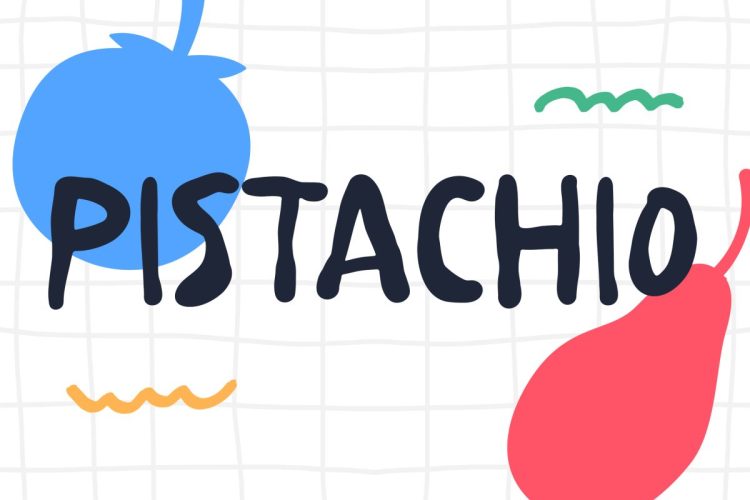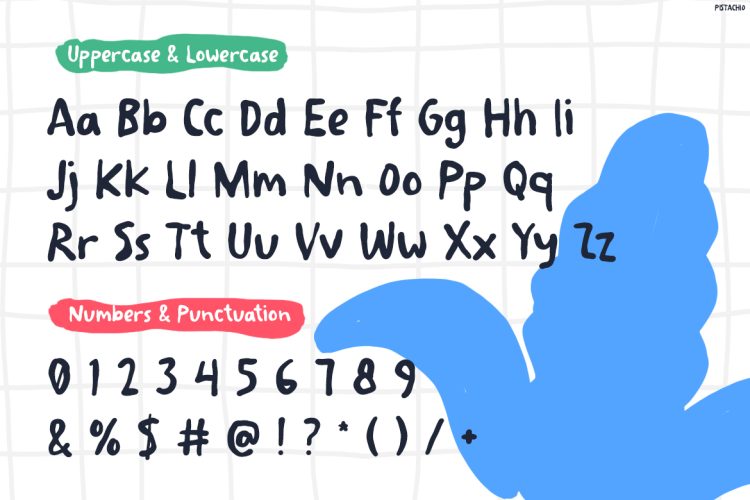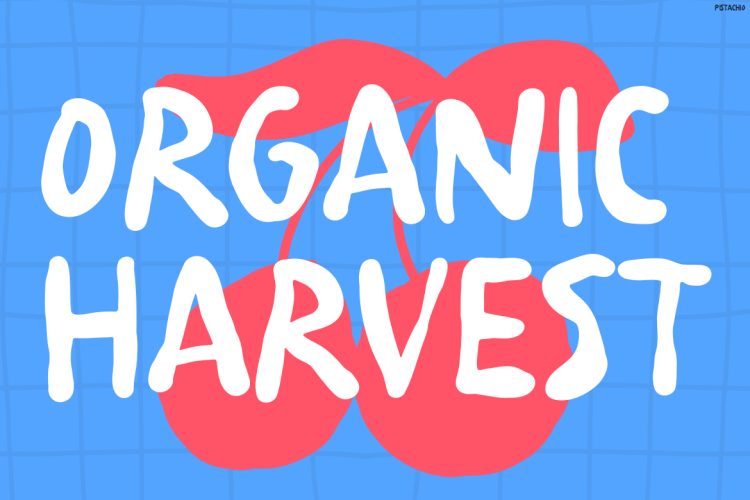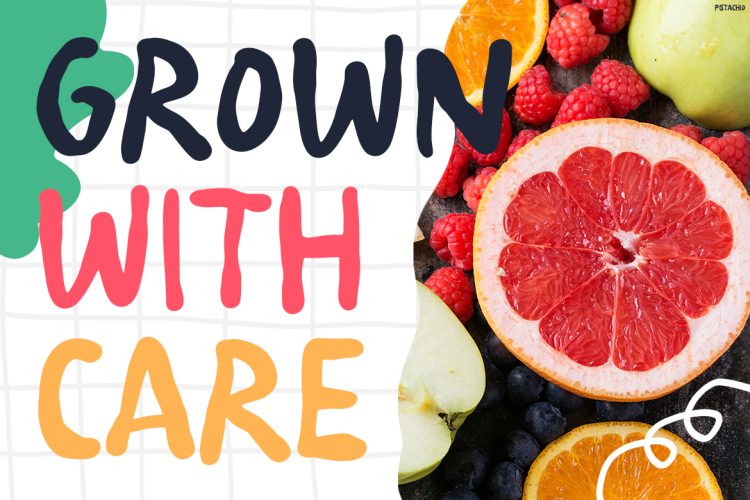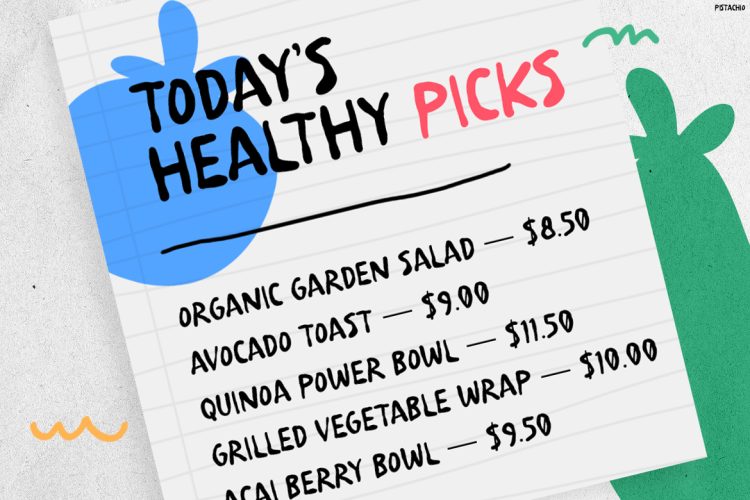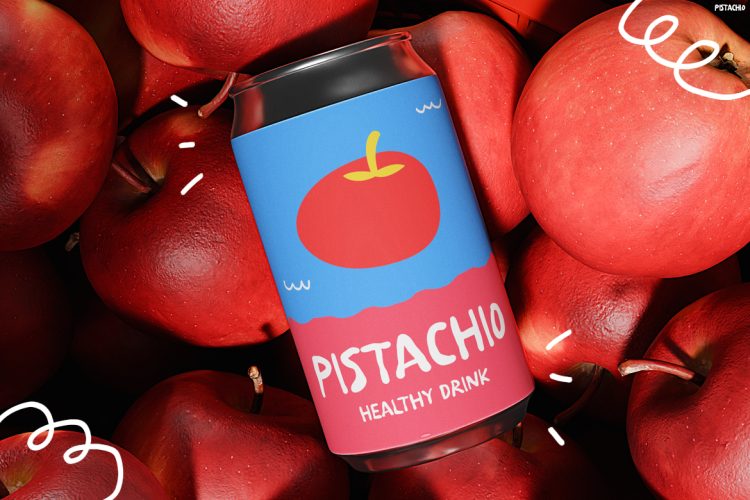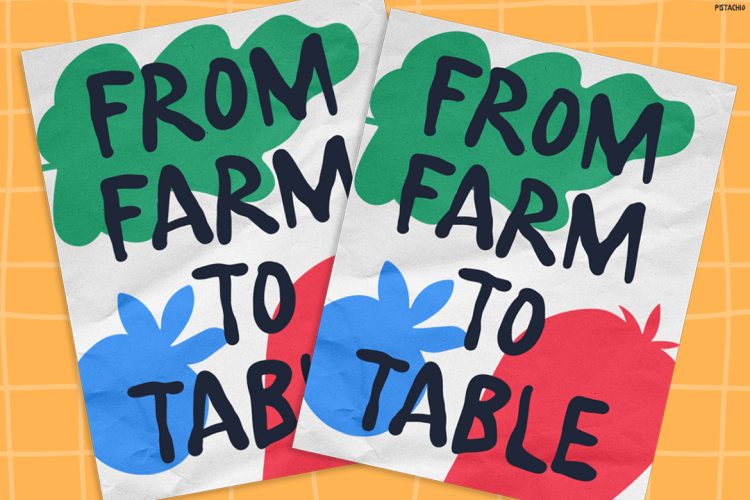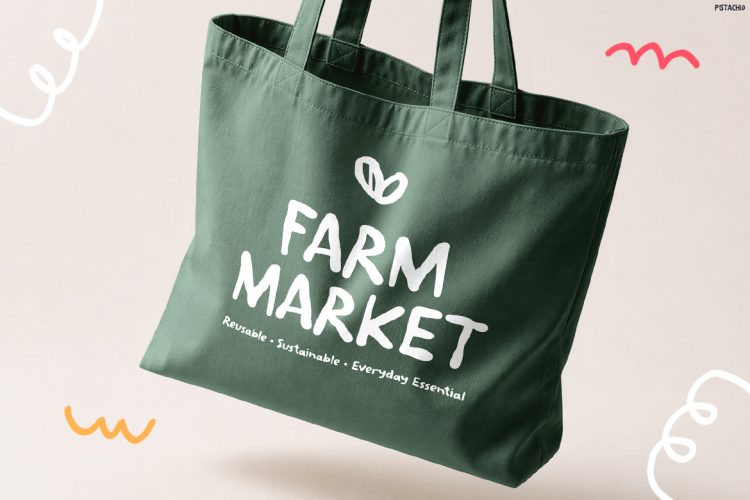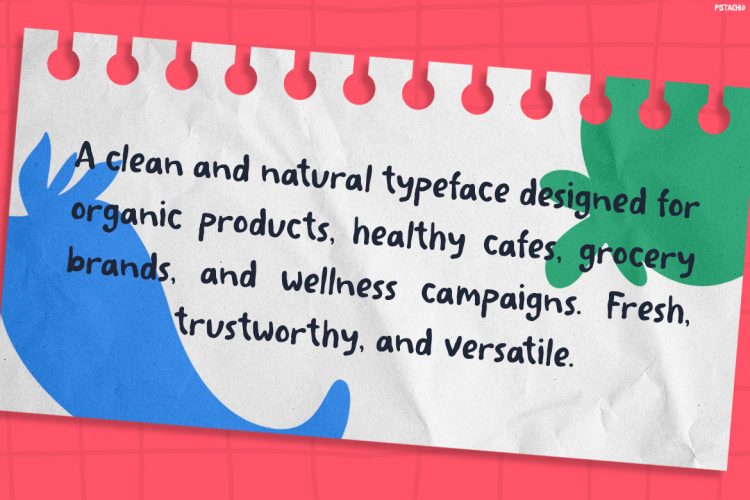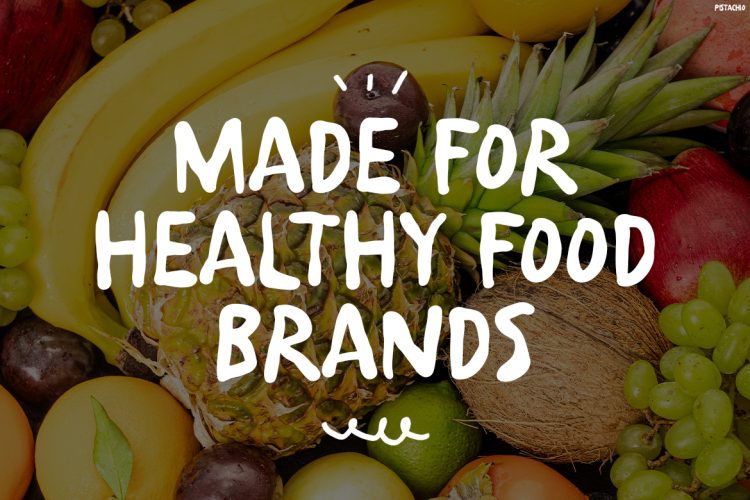
Handwriting Font Pistachio โ Fresh Organic Script with Healthy Brand Energy
Handwriting Font Pistachio is a fun and expressive handwritten font designed to bring freshness, creativity, and natural charm into every design. With its bold brush-style strokes, organic character shapes, and playful handcrafted aesthetic, this font instantly creates a friendly and eye-catching visual atmosphere. Moreover, the natural handwritten flow makes every headline feel authentic, warm, and full of personality. In addition, the bold structure keeps your typography highly readable, so your message stands out across packaging, menus, posters, and social media content. Because of its fresh organic appearance, Handwriting Font Pistachio works perfectly for healthy food branding, farm products, organic packaging, and eco-friendly campaigns. Furthermore, the energetic handwritten style helps every layout feel more approachable and memorable. At the same time, the playful artistic vibe gives your branding a modern and trustworthy personality.
Why Handwriting Font Pistachio Stands Out
Pistachio combines natural handwritten charm with modern branding appeal. As a result, every word feels fresh, lively, and full of character. Not only does the font create a strong visual presence, but it also enhances your designs with its organic and handcrafted look. Additionally, the bold brush lettering makes headlines pop instantly. Meanwhile, the imperfect handwritten details keep your branding feeling genuine and human. Whether you are creating organic food packaging, healthy cafรฉ promotions, farmers market branding, or eco-conscious campaigns, this font helps every project feel more vibrant and engaging. Likewise, the friendly style instantly builds a warm connection with your audience.
- Organic food branding
- Healthy product packaging
- Farmers market promotions
- Cafรฉ menus
- Eco-friendly campaigns
- Social media graphics
- Natural product labels
- Wellness branding
- Fresh food advertisements
- Sustainable business projects
Grow Your Brand Naturally
If you want typography that feels fresh, playful, and impossible to overlook, Handwriting Font Pistachio is the perfect choice. Therefore, add this organic handwritten font to your collection today and instantly create designs that feel healthier, friendlier, and more memorable.